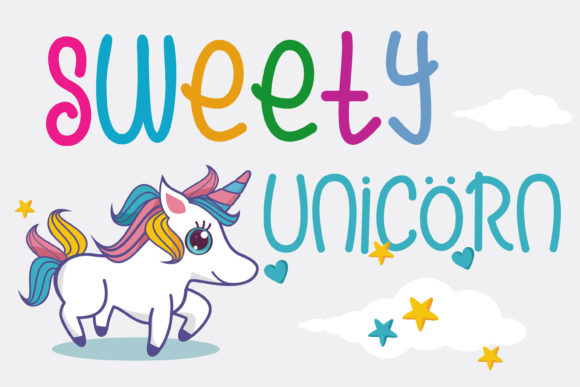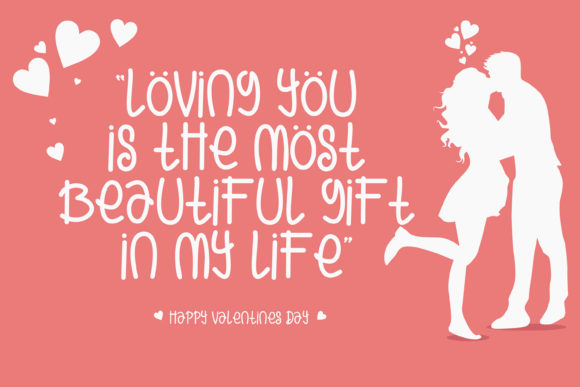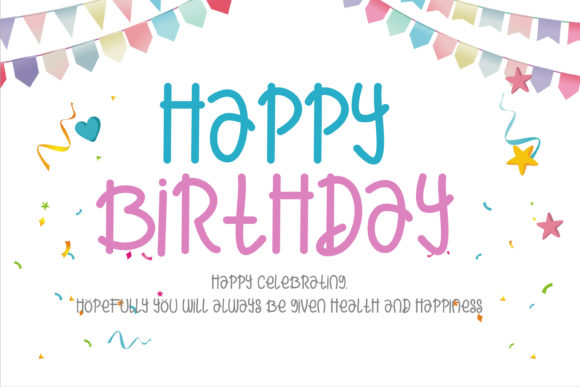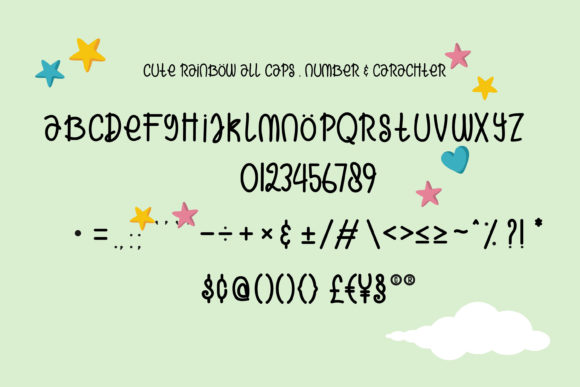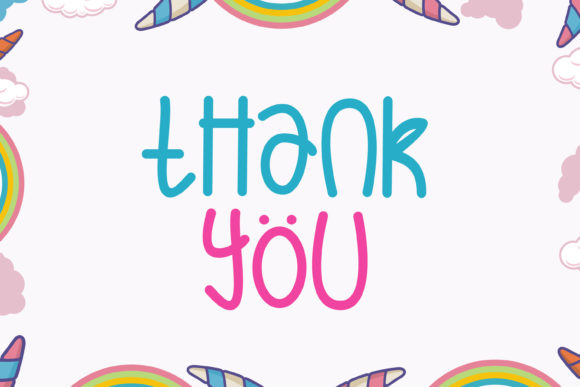
About Cute Rainbow Font
“Cute Rainbow” is a delightful and vibrant handwritten font that brings a sense of joy and playfulness to your designs. With its quirky and full-of-life style, this font is perfect for adding a pop of color and charm to various creative projects.
The unique and playful nature of “Cute Rainbow” makes it an excellent choice for designs that aim to be lighthearted and fun. Whether you’re working on children’s books, greeting cards, party invitations, or any design that calls for a touch of whimsy, this font will bring a smile to your audience’s faces.
The flowing and organic letterforms of “Cute Rainbow” emulate the carefree strokes of a handwritten script. Each character is imbued with a sense of movement and energy, adding a dynamic touch to your text. The varying baseline and charming imperfections give the font a handmade feel, enhancing its overall appeal.
The versatility of “Cute Rainbow” allows it to be used in a wide range of design applications. From logos and branding materials to social media graphics and website designs, this font brings a sense of liveliness and personality to every project.
Whether you’re using it for headlines, titles, or even body text, “Cute Rainbow” remains legible and retains its playful charm. Its bold and rounded letterforms make it easy to read, ensuring that your message is conveyed effectively.
In summary, “Cute Rainbow” is a delightful and vibrant handwritten font that adds a touch of joy and playfulness to your designs. Its quirky and full-of-life style makes it perfect for brightening up various creative projects. Whether you’re designing for children or aiming to create a fun and whimsical atmosphere, “Cute Rainbow” will bring a smile to your audience and make your designs stand out.